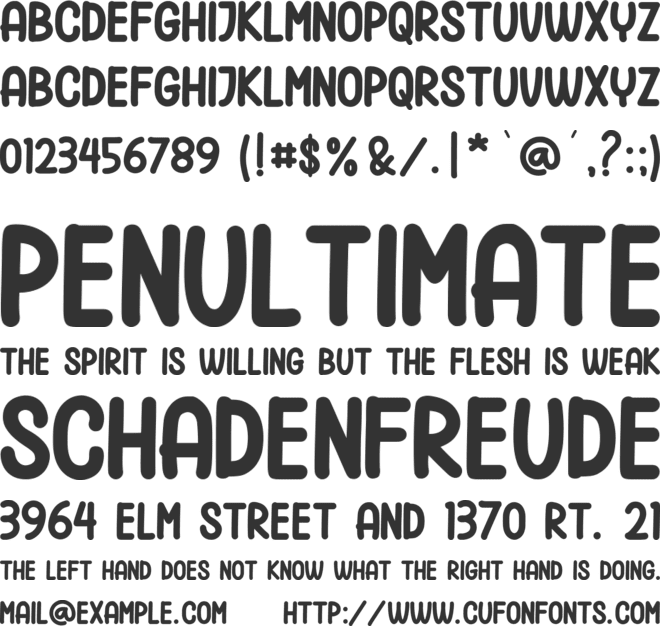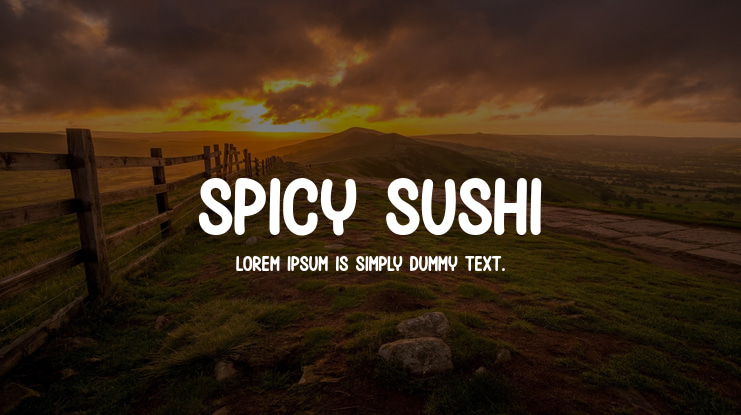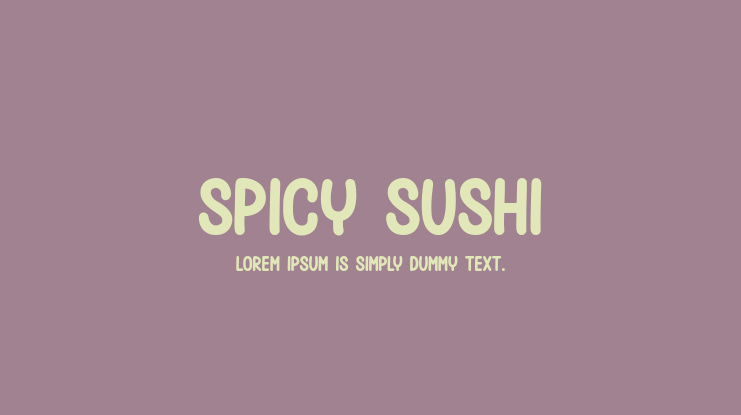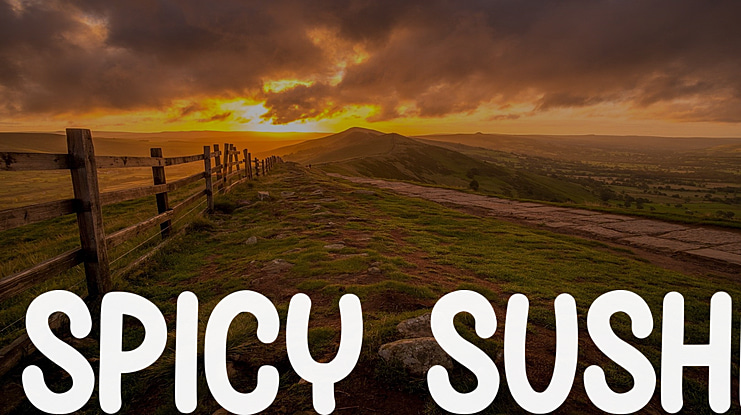
Spicy Sushi Font
Spicy Sushi Font is a simple and natural handwritten font. Whatever the topic, this font will be a wonderful asset to your font library, as it has the potential to enhance any creation.